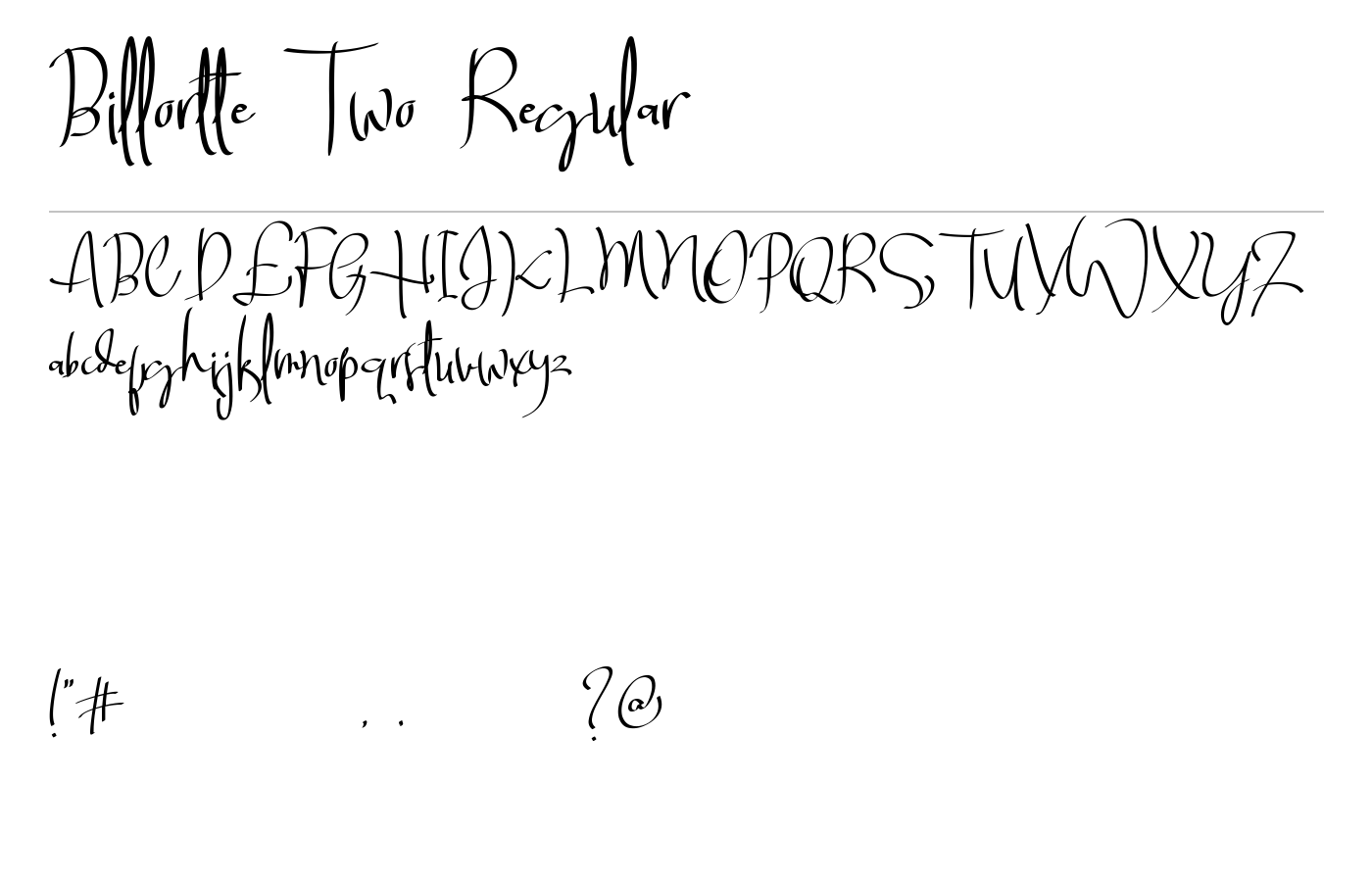
Billortte Two Regular is a delicate, handwritten script font characterized by its tall, narrow letterforms and elegant, flowing lines that create a whimsical and artistic feel. Its thin strokes and unique, slightly erratic shapes give it a charming, personalized touch, making it ideal for creative projects, invitations, and branding that seeks a graceful yet unconventional look. This font works beautifully where a sense of individuality and expressive style is desired, especially in display use rather than body text.
Billortte Font
About Billortte Font
| Designer | Aldedesign 2018 |